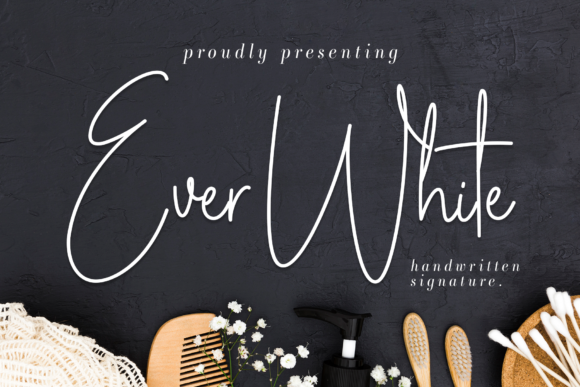
Unleash your creativity and let your words dance with Ever White, the epitome of elegance and grace in the realm of script fonts. This enchanting creation by Goodware.Std is a monoline script font that seamlessly blends classic sophistication with a touch of warmth and approachability.
Ever White's delicate strokes and flowing curves evoke a sense of nostalgia and romance, making it the perfect choice for capturing the timeless beauty of script tattoos. Whether you're a seasoned tattoo artist or simply seeking to express your artistic vision, Ever White is the key to unlocking designs that resonate with emotion and captivate the senses.
Journey into a world of endless possibilities, where Ever White transforms your words into captivating works of art. Its incredibly classic style ensures that your designs stand the test of time, while its friendly feel adds a personal touch that makes them truly unforgettable.
With Ever White as your creative companion, you'll discover a font that's not just versatile, but truly transformative. It's the perfect tool for adding a touch of elegance to invitations, greeting cards, and branding materials. Its effortless flow lends itself beautifully to logos, posters, and social media graphics, leaving a lasting impression on your audience.
Ever White isn't just a font; it's an experience. It's the key to unlocking your creative potential and expressing yourself in ways you never thought possible. Its beauty lies in its simplicity, allowing you to create designs that speak volumes without uttering a single word.
So why settle for ordinary when you can embrace the extraordinary? Embrace Ever White today and embark on a creative journey that will leave you breathless. Let your imagination soar, let your creativity flow, and let Ever White guide you towards designs that transcend time and leave an indelible mark on the world.